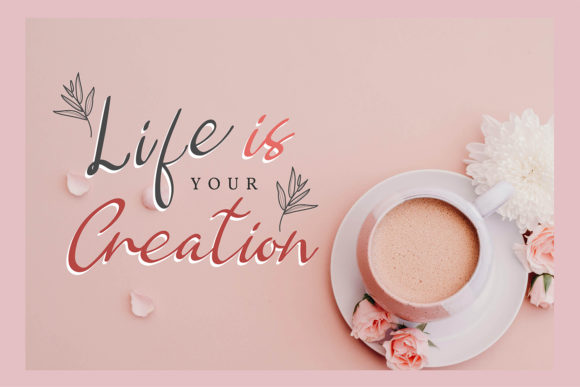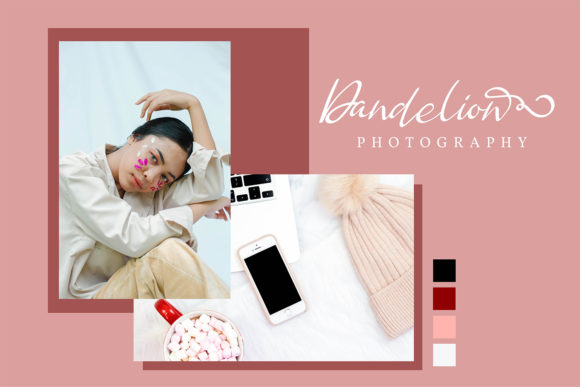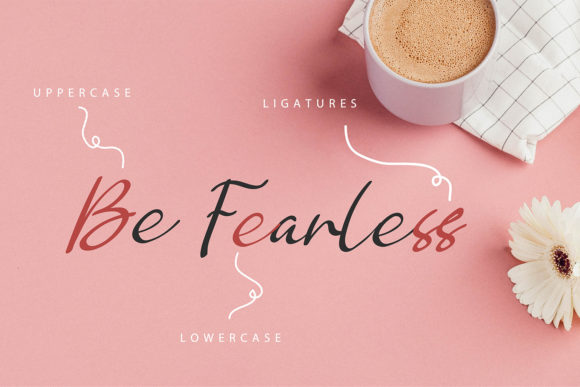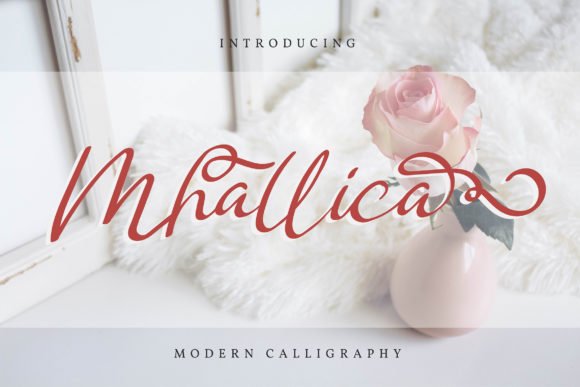
Introduction to Mhallica Font
Mhallica is an incredibly distinct, delicate and timeless handwritten font.
It looks stunning on wedding invitations, thank you cards, quotes, greeting cards, logos, business cards and every other design which needs a handwritten touch This font is PUA encoded which means you can access all of the glyphs and swashes with ease.
Key Features of Mhallica Font
Why Choose Mhallica Font?
Mhallica Font offers exceptional quality and versatility, making it a valuable addition to your design toolkit. Whether you’re creating for personal projects or commercial use, Mhallica Font delivers professional results.